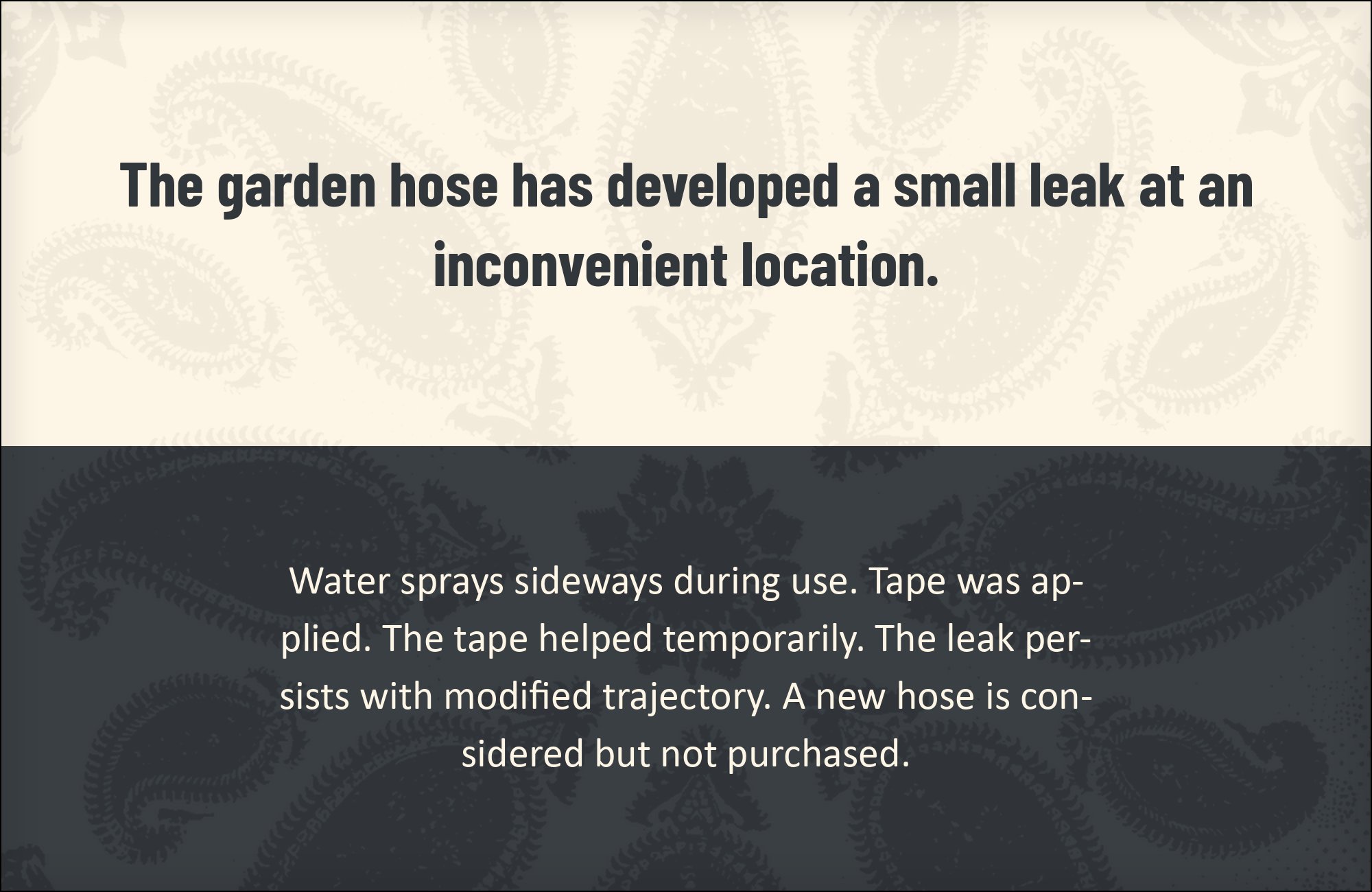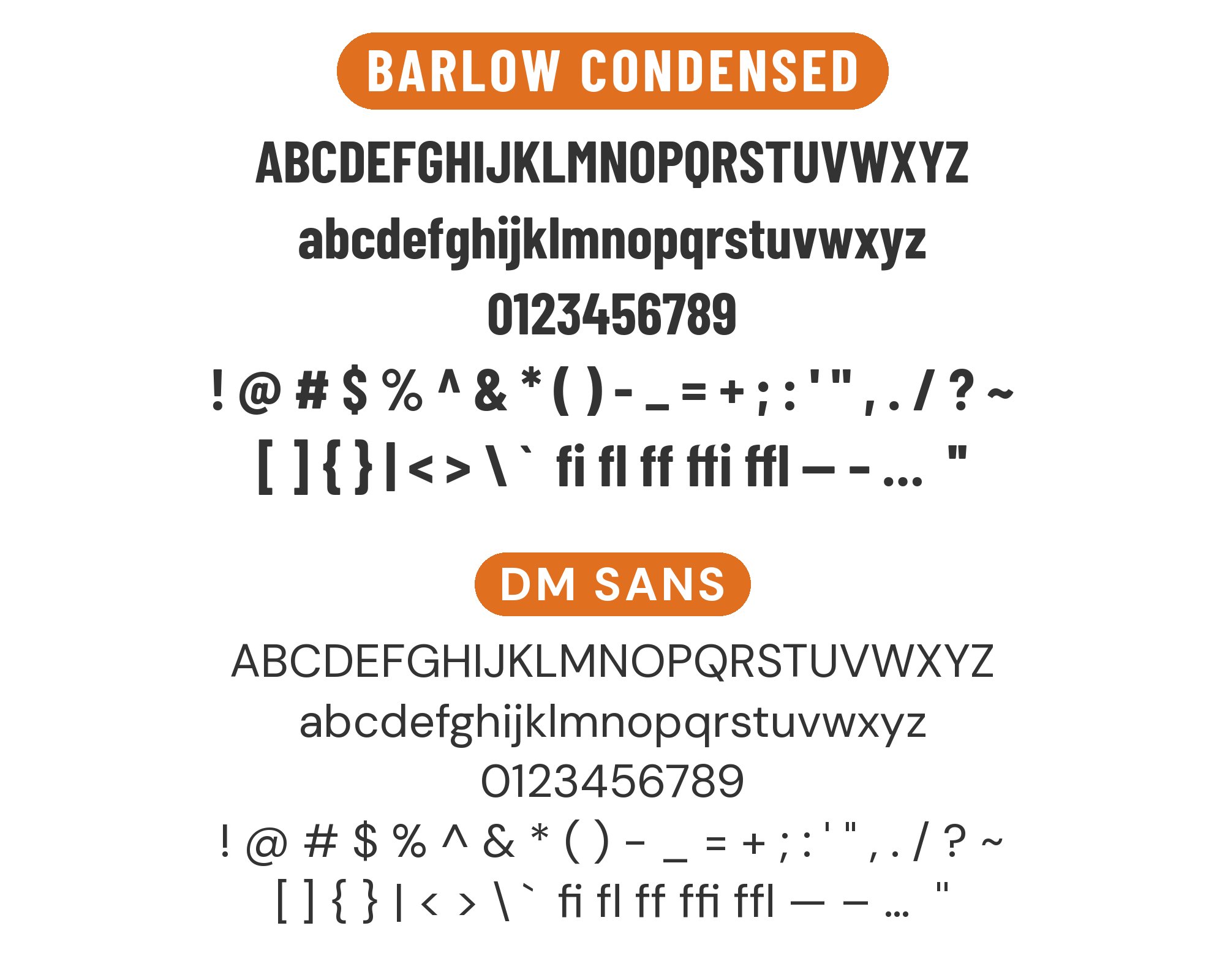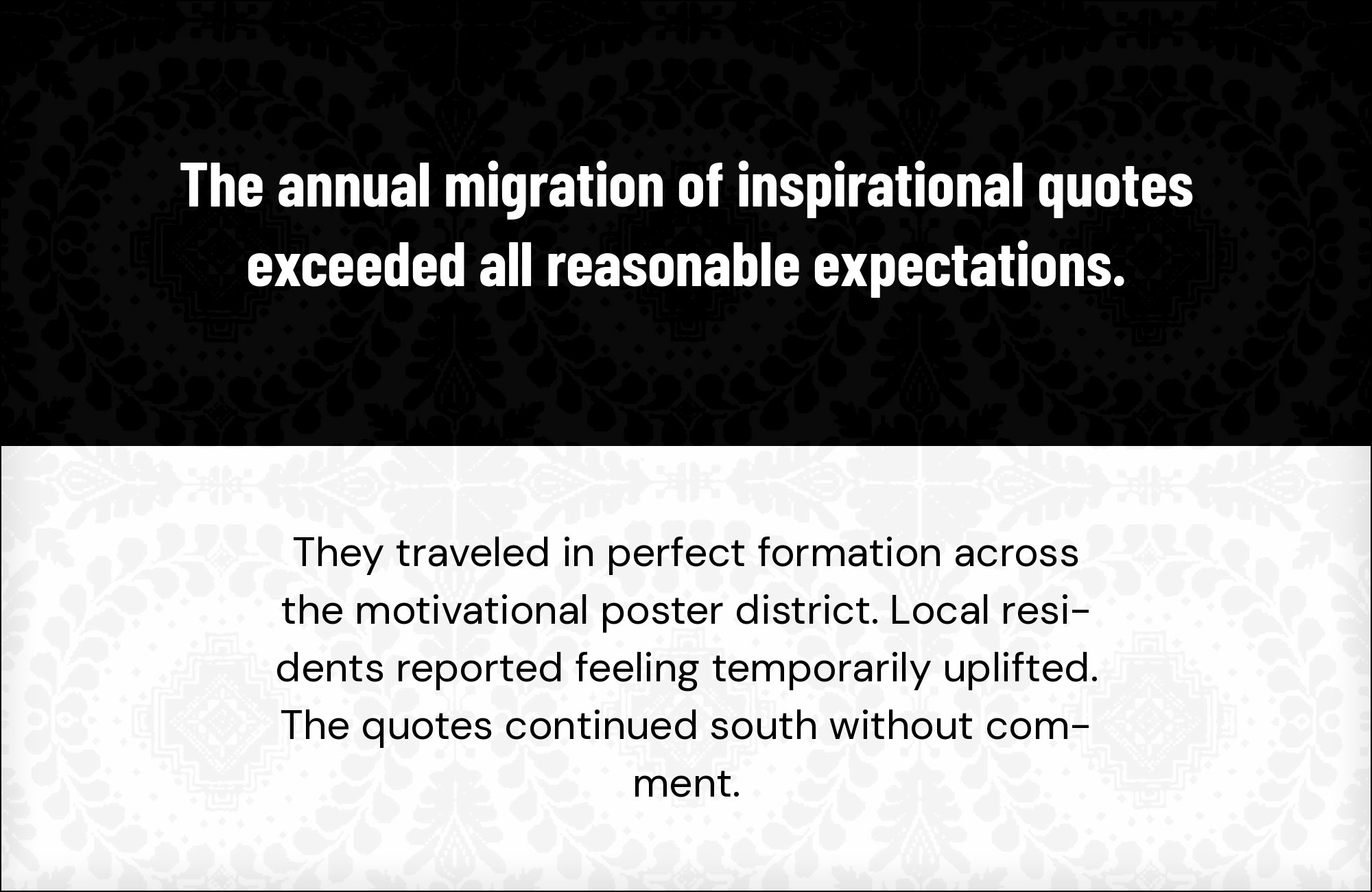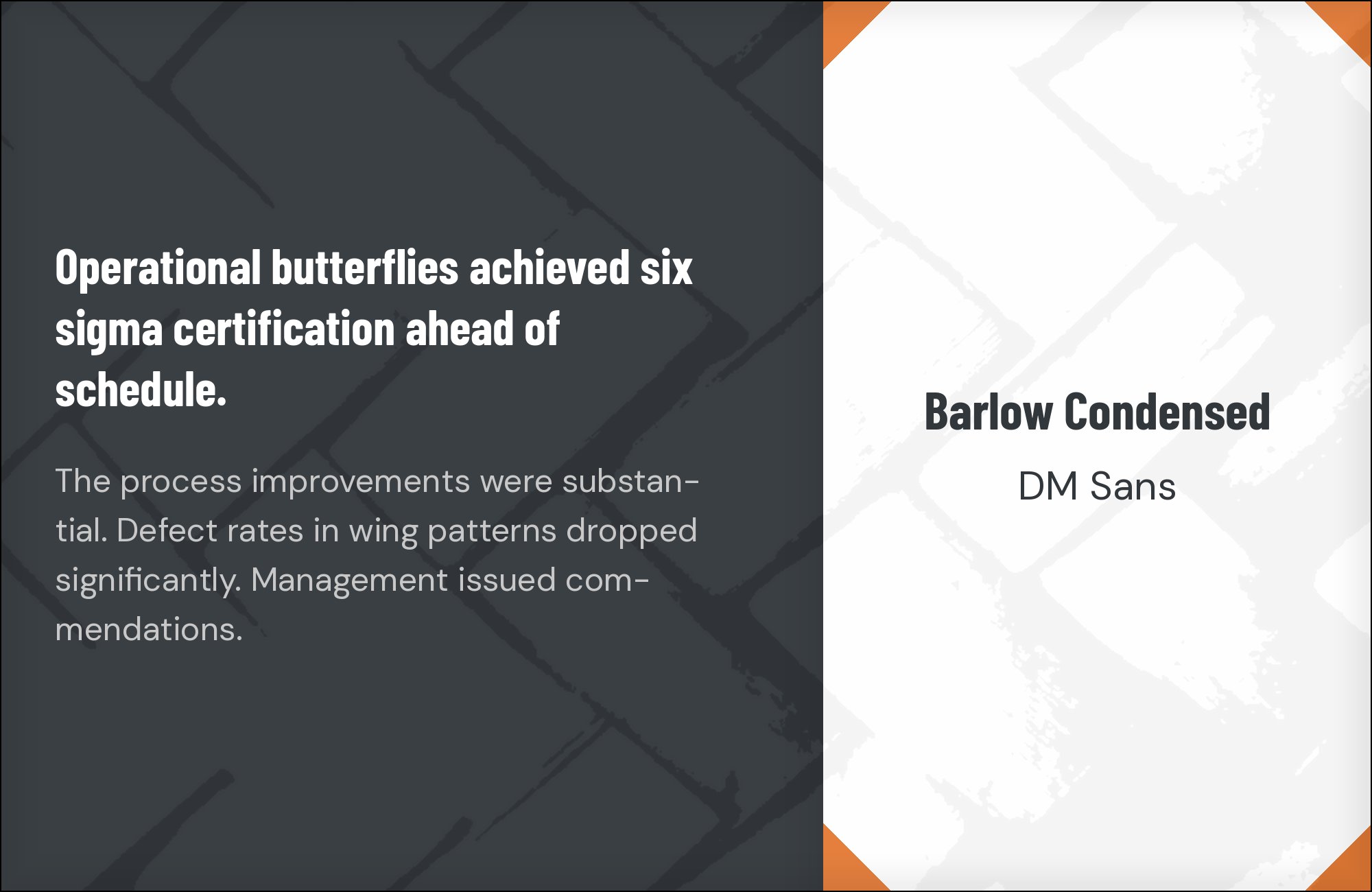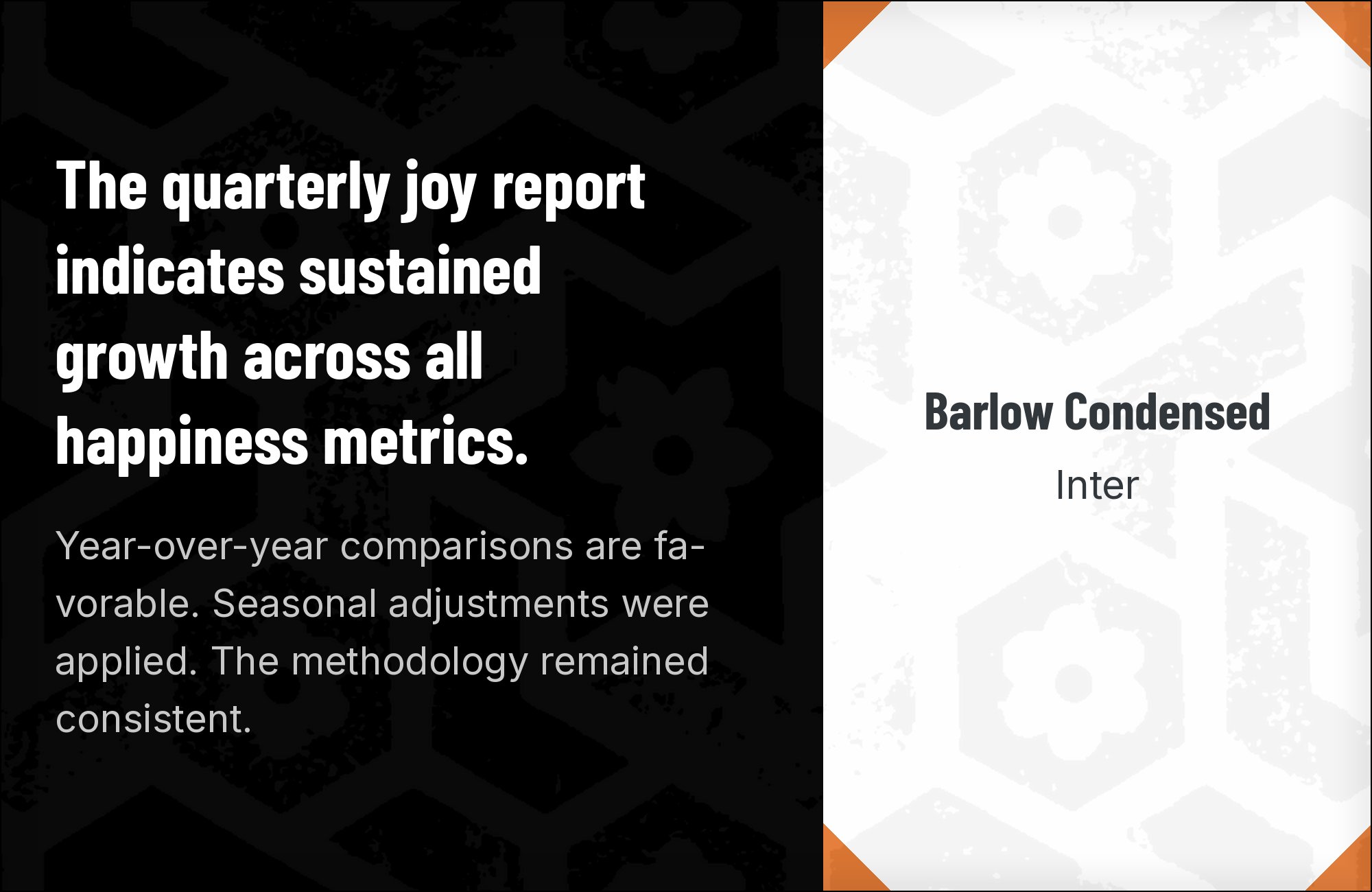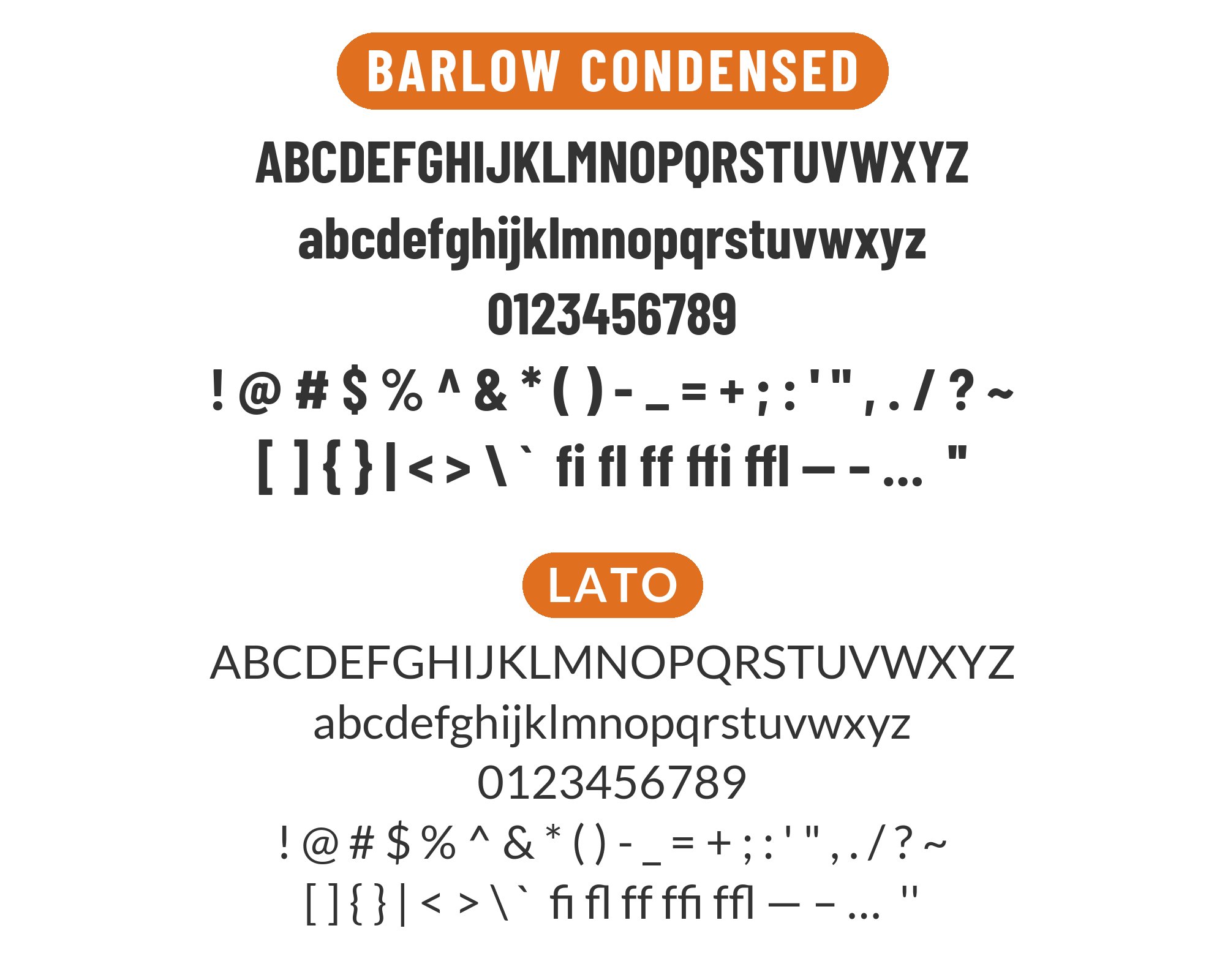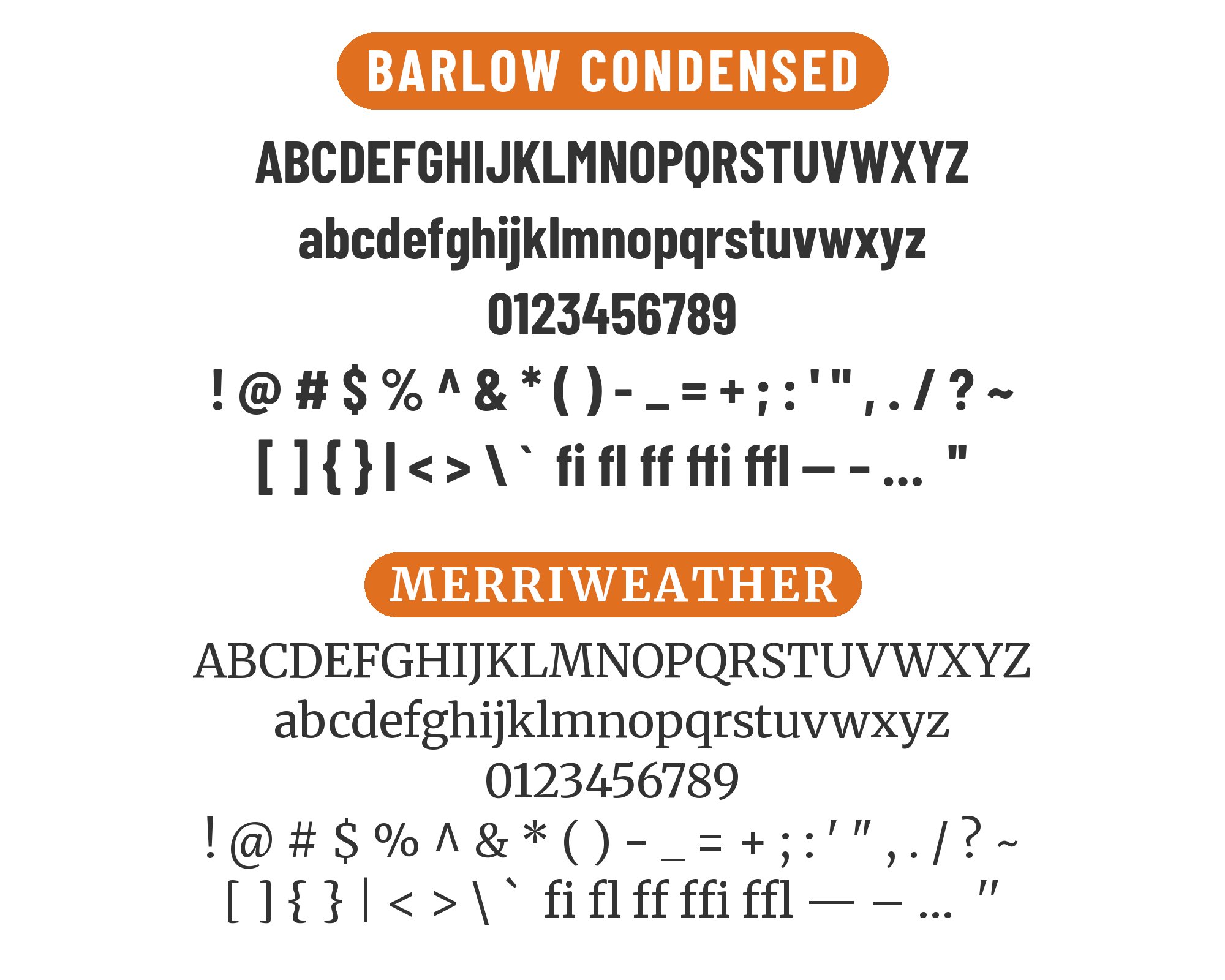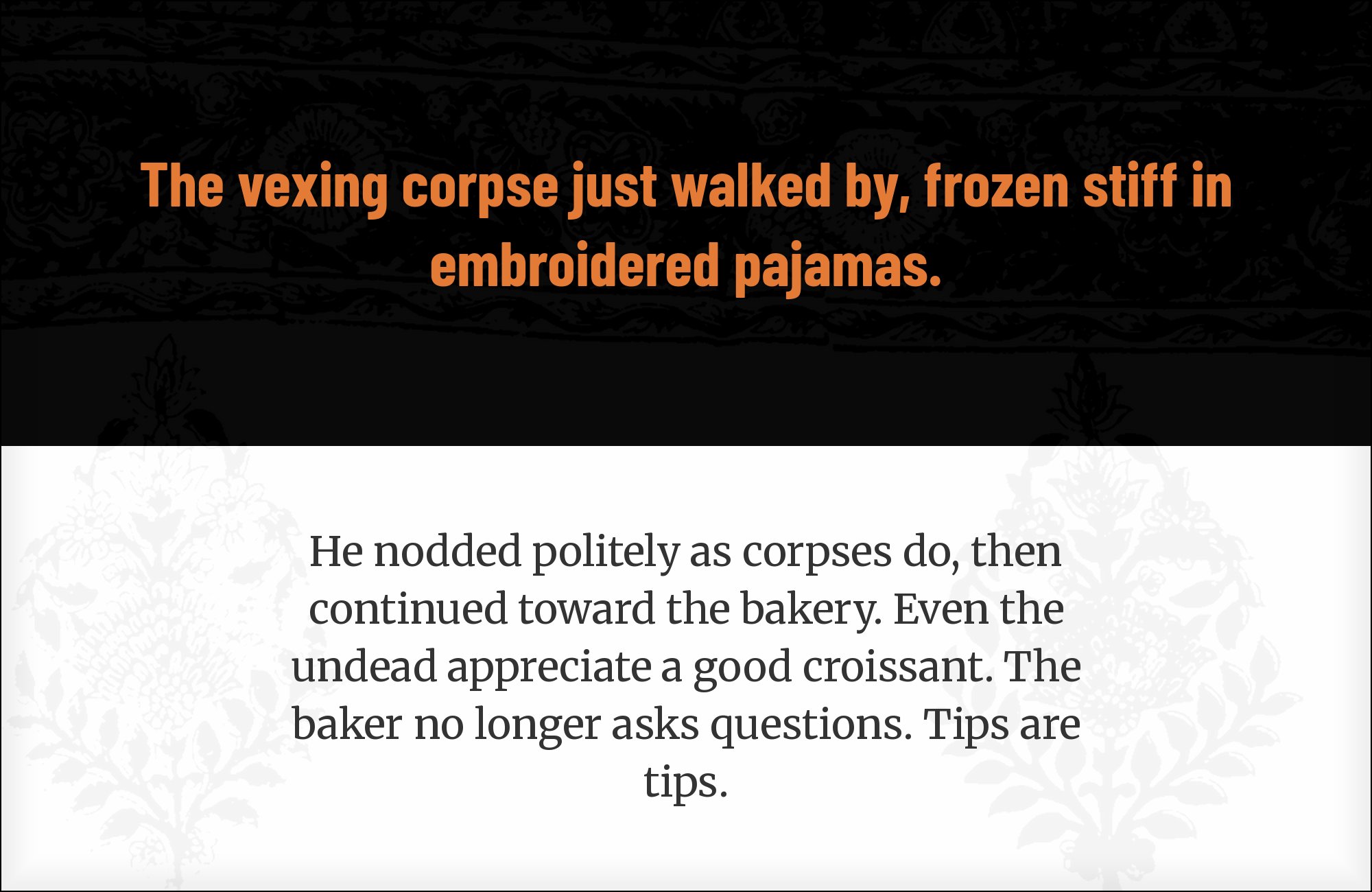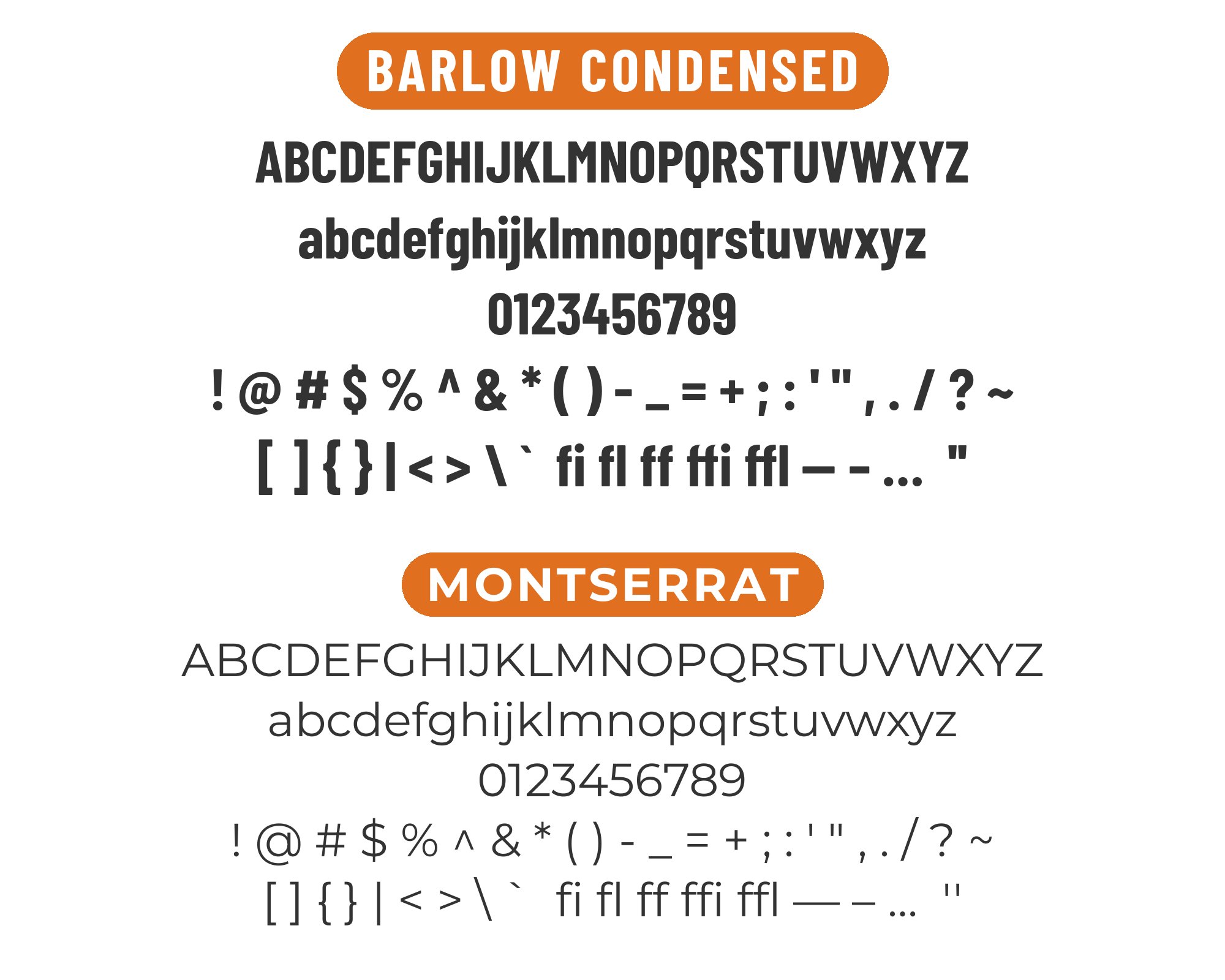
Barlow Condensed pairs great with Open Sans, Roboto and Inter. All 15 pairings are shown below in real rendered specimens, with the reason each one works.
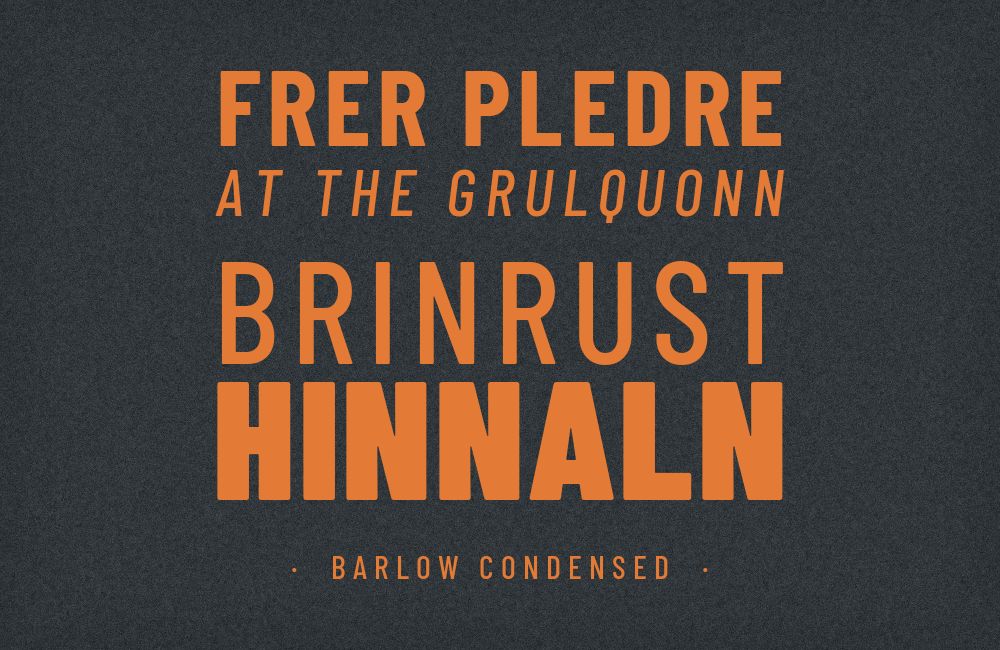
What fonts go with Barlow Condensed? Begin with width. Its narrow proportions give long headlines room inside tight layouts, but a partner usually needs to take over sustained reading. The most convincing combinations make that division visible.
Jeremy Tribby designed Barlow Condensed, which Google Fonts added in 2017. Adobe describes Barlow as a slightly rounded, low-contrast grotesque influenced by California public signage, including license plates, highway signs, buses and trains. The Condensed family belongs to a superfamily with Normal and Semi Condensed widths; each width has nine roman weights with matching italics. That range makes Barlow Condensed flexible, but flexibility does not mean every role is equally comfortable. Its strongest work happens in headlines, labels, navigation and compact display lines.
The pairing decision is therefore about proportion and responsibility. A normal-width sans can preserve Barlow’s direct tone while making paragraphs easier to scan; a serif can introduce a clear editorial register; a round geometric face can counter the narrow vertical rhythm. The evidence below comes from brand manuals, design systems and worked examples that explicitly name Barlow Condensed, rather than pages that only use the wider Barlow family. Here are 15 locally renderable partners with clear roles.
The cleanest partner is Barlow, the normal-width member of the same superfamily. The underlying character stays consistent while the width changes, so a condensed headline can sit over calmer body copy without looking like a separate visual language. Travel Nevada’s brand book makes this split explicit: Barlow Condensed is its headline font, Barlow Semibold handles subheads, and Barlow Regular carries body copy. Boosted Rubber & Vinyl uses the same display-and-body division in its style guide.
Use Barlow Condensed Bold or Semibold for the first line of the hierarchy, then move immediately to Barlow Regular for paragraphs. The shared family details keep the transition quiet, which is useful in identity systems that need many levels but little drama. If the layout feels monotonous, create separation through scale, space and width before reaching for another typeface.
2. Open Sans
Steve Matteson designed Open Sans as a humanist sans with upright stress, open forms and a neutral but friendly appearance. Those open forms are a useful counter to Barlow Condensed’s compressed rhythm. Open Sans can shrink into captions, forms and long paragraphs while the condensed face remains reserved for the line that must carry impact.
Oscar Trimboli’s brand guidelines assign Barlow Condensed to subheadlines and buttons and Open Sans to body copy. Lutheran Indian Ministries uses a more layered system: Merriweather for editorial headings, Barlow Condensed for navigation and labels, and Open Sans for reading text. Both systems demonstrate the same principle. Keep the narrow face concentrated in short, visible moments, then let Open Sans absorb repetition. This is a dependable choice for websites, reports and presentations where clarity matters more than stylistic friction.
3. Roboto
Roboto combines a mechanical skeleton with friendly, open curves. That mixture suits Barlow Condensed: both faces can sound functional, while Roboto’s normal width and open counters make the reading layer less compressed. Banca Etica’s digital guidelines specify Barlow Condensed as an alternative title face and Roboto for body text, subtitles and menu items. RAID’s brand guide also assigns Barlow Condensed to uppercase headlines and Roboto Regular to sentence-case body copy. A Virtual Classroom case study documents the same headline-and-body split.
Use Roboto Regular for paragraphs and interface copy, Medium for controls, and Barlow Condensed for major headings or banners. The pairing is especially effective when the layout already contains dense information: the two faces share a practical tone, so width and role create the hierarchy without adding ornament. Test the smallest labels first, then scale the headline around the available measure.
4. Inter
Rasmus Andersson released Inter in 2017 to improve on-screen readability, especially for interface text at small sizes. Its open, normal-width rhythm gives Barlow Condensed a disciplined screen partner without changing the overall grotesque tone. Astrotypes presents an explicit stack with Barlow Condensed as the heading face and Inter as the body face.
Use this combination for product pages, dashboards and documentation. Barlow Condensed can take feature headings, compact navigation and numeric callouts; Inter can manage controls, tables and paragraphs. Keep the condensed face out of repeated form labels unless space truly requires it. The pairing works because the two fonts divide the interface by width and frequency: the narrow face creates emphasis, while Inter makes routine reading feel uneventful.
“AI builds anything, so what do I sell?”
Taste is the answer. Own your stack and automate your own CMS.
Find Out How5. Montserrat
Julieta Ulanovsky initiated Montserrat from lettering found in the Montserrat neighborhood of Buenos Aires. Its broad geometric forms push against Barlow Condensed’s narrow vertical emphasis, creating width contrast while keeping both voices modern and sans serif. Grid Web Engine lists Barlow Condensed with Montserrat among its favourite combinations, and EComposer assigns Barlow Condensed to headings with Montserrat to text in a worked pairing.
This combination is strongest in minimalist brand and commerce layouts. Let Barlow Condensed control compact titles, category names and promotional banners. Use Montserrat Regular for short body copy and Medium for supporting headings. Avoid setting both faces in heavy weights at similar sizes; the width contrast disappears when they become competing blocks. Instead, let the condensed face be taller and tighter, and give Montserrat more surrounding space.
6. Raleway
Matt McInerney began Raleway as a single thin weight, and Pablo Impallari and Rodrigo Fuenzalida later expanded the family. Its elegant proportions and distinctive display details move Barlow Condensed away from an industrial register. Grid Web Engine explicitly presents Barlow Condensed with Raleway as an example of contrast between a narrow sans and a normal-width sans.
Use this pair when the page needs refinement without becoming formal. Barlow Condensed can handle navigation, category labels and decisive headings; Raleway can carry subheads, introductions and short passages where its lighter texture has room to show. For long body copy, choose a sturdy Raleway weight and proof it at the final size. The pairing succeeds when the width change is clear and the weight contrast remains controlled. If both fonts become thin, the hierarchy weakens; if both become bold, the layout turns into competing display type.
7. DM Sans
Colophon Foundry designed the original Latin master for DM Sans, adapting it from Poppins for smaller text sizes. Its broad, clean texture gives Barlow Condensed a normal-width reading layer while keeping the system firmly contemporary. Astrotypes includes an explicit Barlow Condensed heading and DM Sans body stack.
DM Sans is useful when Inter feels too neutral and Montserrat too geometric for sustained copy. Give Barlow Condensed the prominent, space-sensitive lines and use DM Sans for descriptions, cards and interface text. Avoid pulling both into the same headline. Their similar low-contrast color needs a visible difference in width, size or weight so readers can understand the hierarchy immediately.
Paid prompt-to-site tools are going to lock you in.
How can your studio escape this?
Find Out How8. Space Grotesk
Florian Karsten developed Space Grotesk from Colophon Foundry’s Space Mono, adapting the design to proportional widths while retaining distinctive details. It supplies the normal-width, contemporary voice that Barlow Condensed lacks without turning the page traditional. TodayMade explicitly presents Space Grotesk with Barlow Condensed for tech product pages, brand refreshes and startup pitch decks.
This pairing can work in either direction. Use Space Grotesk for broad hero statements and Barlow Condensed for dense decks and labels, or reverse the roles when a narrow headline has to fit a product screen. What matters is that only one face dominates each level. Space Grotesk’s quirks become noisy if every control uses them, while Barlow Condensed becomes tiring if it carries every sentence. Divide the interface before assigning weights.
9. Calibri
Lucas de Groot designed Calibri for Microsoft’s ClearType collection as a humanist sans that works well in long texts. Its familiar, open texture makes an effective document partner for a more assertive condensed heading. The Rural Municipalities of Alberta brand guide assigns Barlow Condensed Semibold to headings and subheadings, Calibri Regular to body text, and Calibri Bold to selected supporting subheads.
This is a useful office-document system because it does not ask the body face to perform as branding. Use Barlow Condensed for the visible framework—cover titles, section dividers and short headers—then let Calibri manage reports, tables and correspondence. When a recipient may not have Barlow Condensed, export the final artifact or use the guide’s fallback strategy rather than allowing a silent substitution to distort headline widths.
10. Poppins
Indian Type Foundry designed Poppins as a geometric family whose Latin forms use near-monolinear construction. Its circles and broad spacing create an immediate proportional contrast with Barlow Condensed while the even strokes keep their color compatible. C&I Studios’ brand guidelines designate Poppins as the primary typeface and Barlow Condensed as the secondary face; worked layouts use Barlow Condensed for headlines with Poppins for copy.
Use Poppins when the design should feel geometric and contemporary. Barlow Condensed can carry campaign phrases, numeric callouts and narrow navigation, while Poppins holds the everyday reading. Give the round forms enough size to remain visible, and do not tighten Poppins merely to imitate the condensed face. Their disagreement about width is the reason the pairing works.
11. Quicksand
Andrew Paglinawan initiated Quicksand as a display sans with rounded terminals, and Thomas Jockin later revised the family. Its soft geometry counters Barlow Condensed’s vertical efficiency without producing a serif-versus-sans break. The Herff Jones font book gives a worked hierarchy with Barlow Condensed Bold as one headline and Quicksand as another, then uses Quicksand Semibold for subheads and Light for copy. An MIT Admissions article also identifies the two on the same poster.
The combination is suited to youth, education and event work. Keep Barlow Condensed for urgency and Quicksand for the friendly supporting voice. Because both can look informal, separate them strongly by role: one headline family, one reading family, and enough space between levels to make the change deliberate.
12. Lato
Łukasz Dziedzic started Lato in 2010. Its humanist details and normal proportions soften the narrow display face without making the system feel ornamental. The STEMFest New Zealand style guide uses Barlow Condensed for print display and headings, then assigns Lato to subheads and body text. C&I Studios also includes Lato as its default web fallback beside its Poppins and Barlow Condensed brand palette.
Use Lato for consumer, education and community-facing work where the body copy should feel approachable. Lato Regular can carry paragraphs, while Bold can organize subheads without borrowing the display role. Barlow Condensed should remain the compressed accent: a title, date, category or callout. That division keeps the page warm while preserving the economy that made the condensed face useful.
13. Merriweather
Merriweather is led by Sorkin Type and was designed as a text face for comfortable screen reading. Its serif texture introduces the strongest editorial contrast in this list. Lutheran Indian Ministries uses Merriweather for page titles, quotes and editorial headings, Barlow Condensed for interface labels and subheads, and Open Sans for body text. The system proves that a pairing does not have to be a two-font lockup to establish a useful relationship.
Use Merriweather when Barlow Condensed needs an authoritative editorial counterweight. The serif can lead feature titles or long-form sections, while the condensed sans handles navigation, tags and data labels. If you prefer Barlow Condensed as the main headline, move Merriweather to paragraphs and subheads. In either direction, keep their jobs distinct and judge the contrast with real content rather than alphabet samples.
14. Public Sans
Resolve to Save Lives assigns Barlow Condensed to the folio and H1, then moves into Public Sans for the remaining headings and body copy. The change in width does most of the work: the condensed capitals form a forceful entry point, while Public Sans opens the page into a steadier reading rhythm. Keep the H1 short and tracked with care, then use Public Sans at normal width for explanations, lists, and tables. Because both families are low-contrast sans serifs, weight and size must remain clearly separated. The combination fits reports, public-health campaigns, and information-heavy sites where a strong headline must lead into calm, accessible detail.
15. Red Hat Text
The ECHS brand guide sets Barlow Condensed Bold in all caps for headlines and Red Hat Text Regular for standard body copy. Red Hat Text brings a broad, open lowercase beneath the narrow display line, so the system gains horizontal contrast without changing category. Let Barlow Condensed handle only the title or short label, and reserve Red Hat Text for every sentence the reader must follow. A generous line height in the body keeps the dense headline from setting the pace for the entire page. This is a useful pattern for schools, events, and community organizations: compact authority at the top, then an approachable humanist texture through forms, web pages, brochures, and correspondence.
Barlow Condensed works best when another face restores the space and reading rhythm its narrow design deliberately gives up. Barlow, Open Sans, Roboto, Inter, Montserrat, Raleway, DM Sans, Calibri, Poppins, Quicksand and Lato preserve a sans-serif system while changing width, tone or availability. Merriweather creates a sharper editorial split. Space Grotesk adds contemporary character without abandoning the sans category.
Start with the role evidence: headlines versus paragraphs, labels versus reading text, branded output versus office fallback. Then proof actual names, dates, prices and paragraphs at the size they will ship. The strongest pairing is the one where Barlow Condensed remains unmistakable in its narrow role and the partner makes everything around it easier to read.